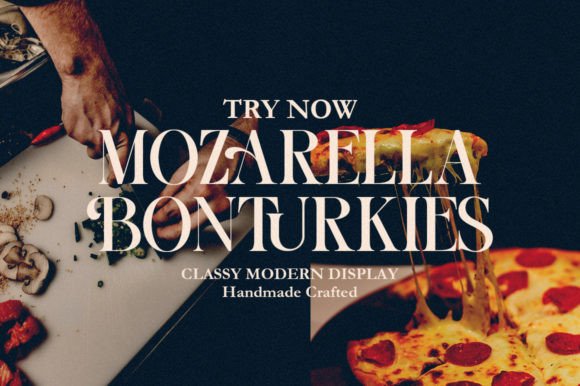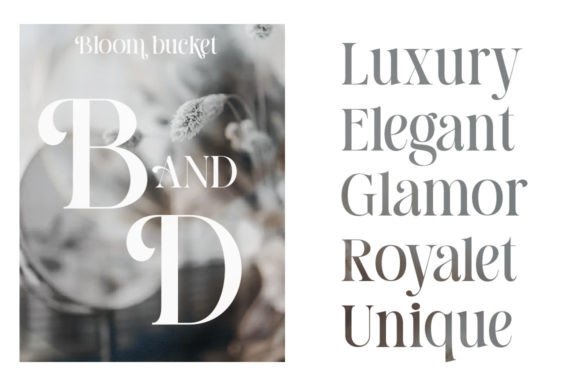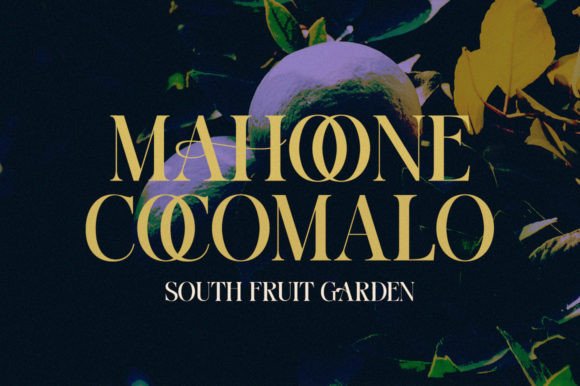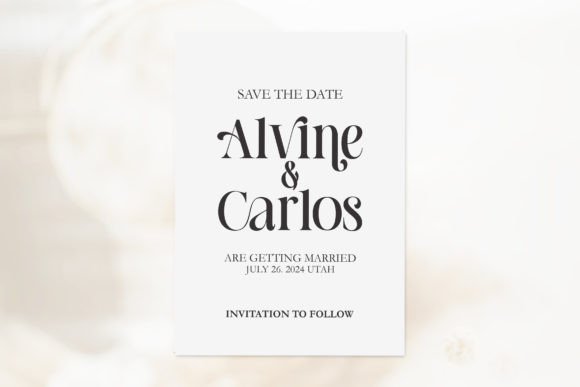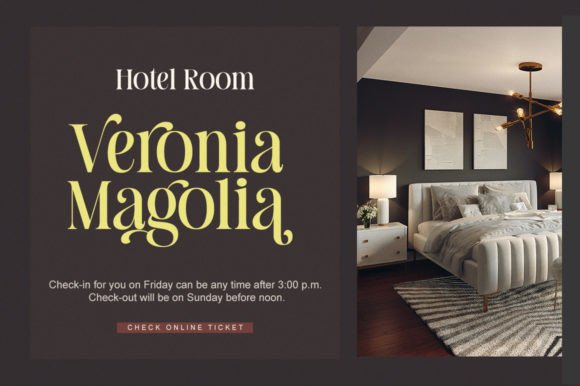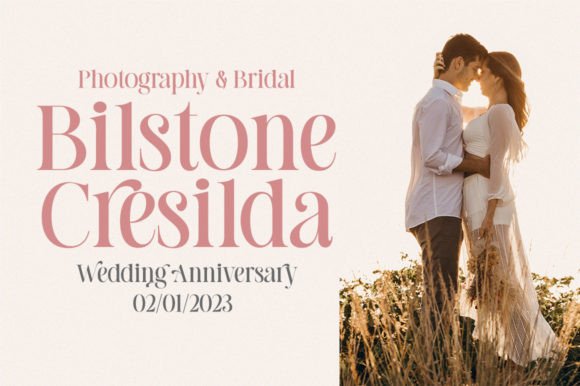
The Elusive Font: A Designer’s Journey with Calera
I still remember the frustration of working on a project, hours spent scrolling through font libraries, and yet, none seemed quite right. The client wanted something elegant, yet approachable; classic, yet versatile. That’s when I stumbled upon Calera Font, and it was love at first sight! In this article, I’ll share my experience with Calera, its features, and how to make the most of this beautiful font.
First Impressions: What I Love About Calera
Calera Font has been a game-changer for my design projects. Here are a few things that I absolutely love:
• ✨ Elegant and Timeless Design: Each letter has been hand-drawn with great care, giving it a classic appeal that never goes out of style.
• ✅ Versatility: With over a dozen alternatives and ligatures, multilingual support, and various weights, Calera offers a range of options to suit different design needs.
• 🔍 Great Precision: The font’s precision makes it perfect for a variety of applications, from logos and posters to notes and labels.
• 💻 PUA Encoded: Calera is PUA encoded, making it easy to access all the amazing glyphs and ligatures.
Honest Review: A Few Quirks
While Calera has been a fantastic addition to my font library, there are a few things to keep in mind:
• 🤔 Learning Curve: With so many alternatives and ligatures, it can take some time to get familiar with the font’s features.
• ⚠️ Compatibility Issues: As with any font, there might be compatibility issues with certain software or platforms.
The Story Behind Calera
Calera Font was designed with the intention of creating a timeless and versatile font that could be used for a variety of applications. The designer aimed to craft a font that was both elegant and approachable, making it perfect for designers, crafters, and creative hobbyists.
What is Calera Font best used for? Calera Font is perfect for logos, notes, posters, t-shirts, stickers, posters, mugs, labels, and more.
Is Calera Font suitable for body text? While Calera is primarily designed for titles and headings, it can be used for body text in certain contexts, such as formal documents or creative projects.
Is Calera Font available in different weights? Yes, Calera Font comes in various weights, providing a range of options to suit different design needs.